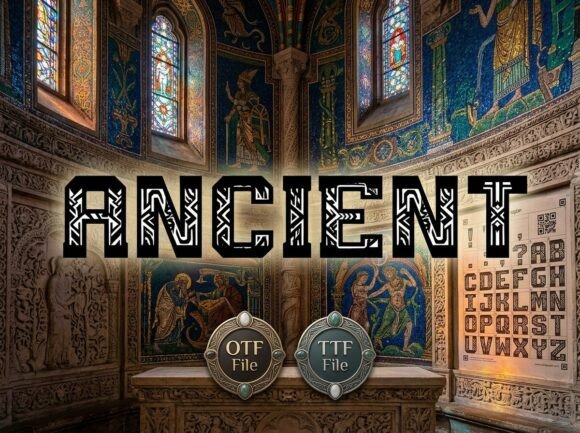
Unlocking the Mystique of History: A Deep Dive into the Ancient Font
I’ll never forget the design struggle I faced while working on a fantasy book cover project. My client wanted a title font that exuded ancient wisdom, mysticism, and a touch of the epic. I scoured font libraries, but nothing seemed to capture that essence – until I stumbled upon the Ancient font. This bold, blocky display font has been a game-changer for me, and I’m excited to share its awesomeness with you! 😊
- ✅ Instant Gravitas: The Ancient font gives your titles an immediate sense of gravity and ritual, making it perfect for fantasy world-building, gaming logos, and epic book covers.
- ✅ Tribal Geometric Pattern: The striking white-on-black tribal line pattern adds a unique, eye-catching element to your designs.
- ✅ OpenType Features: The font comes with a range of OpenType features, including stylistic alternates and glyphs, to help you create stunning text arrangements.
- ⚠️ Legibility at Small Sizes: Due to its intricate design, the font may not be legible at very small sizes. Use it for headlines or titles where you want to make a statement.
- ⚠️ Limited Use Cases: While versatile, the Ancient font might not be the best fit for body text or more formal designs. Stick to display purposes for maximum impact.
The Story Behind Ancient: A Designer’s Inspiration
The Ancient font was crafted with the goal of capturing the essence of history and mysticism. Its creator drew inspiration from ancient runes, architectural relics, and sacred geometric carvings. The result is a font that instantly transports your designs to a world of epic fantasy and timeless wisdom.
Q: Can I use the Ancient font for body text?
A: While possible, the Ancient font is best suited for display purposes due to its intricate design. For body text, consider a clearer, more legible font.